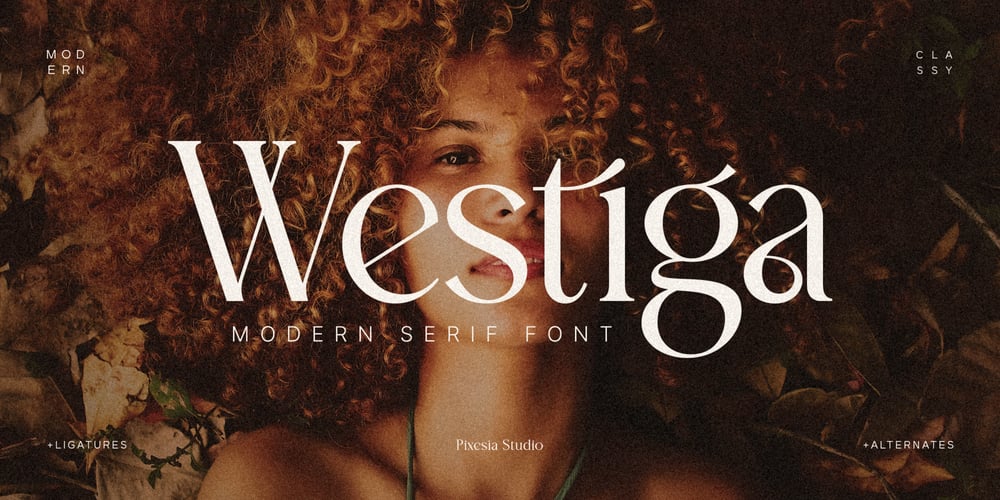
Westiga Font Family was designed by Abul Almaududi and published by Pixesia Studio. Westiga contains 1 styles and family package options. Introducing Westiga – a Modern & Luxury Serif FontWestiga is a modern and luxury serif typeface designed with beautiful crafted characters that follow the trend. It can be used for adding a unique touch to logos, heading, branding business, magazines, product packaging, invitation, monograms, merchandise, poster book title, movie title or pull quotes and so much more. FEATURES- Stylistic Alternates- Ligatures- PUA Encoded- Uppercase and Lowercase letters- Numbering and Punctuations- Multilingual Support- Works on PC or Mac- Simple Installation- Support Adobe Illustrator, Adobe Photoshop, Adobe InDesign, also works on Microsoft WordHope you Like it.Thanks.